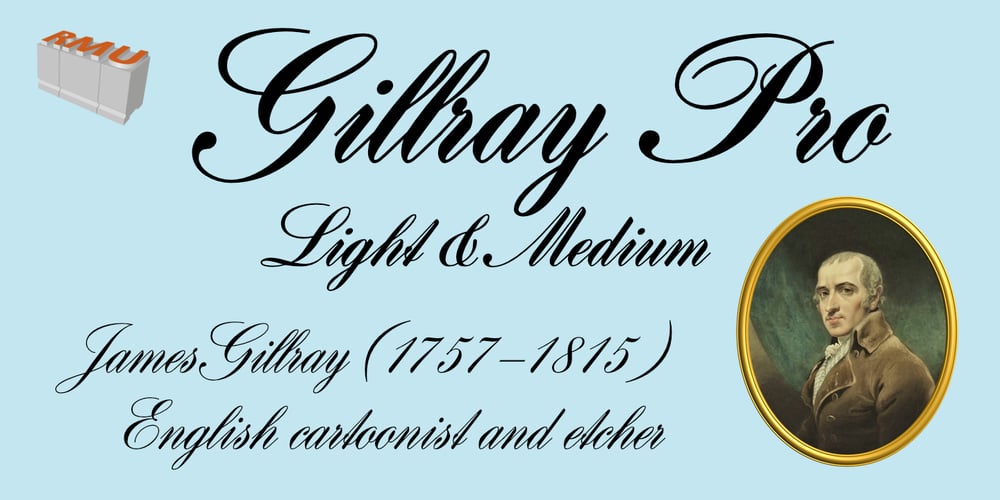
Gillray Pro Font Family was designed by Harald Brödel, Ralph M. Unger and published by RMU. Gillray Pro contains 2 styles and family package options. Based upon H. Broedel’s Hogarth Script, Gillray Pro, an RMU design, comes with two weights: Light and Medium. This formal script font is ideal for invitations, diplomas, certificates, book titles, ads etc.